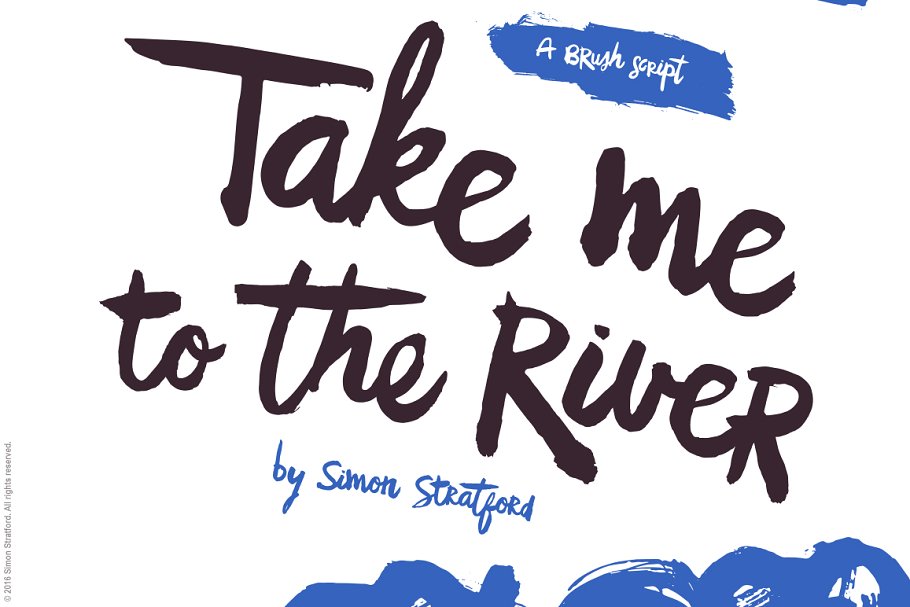
Introducing Take me to the River, a captivating script font created by the talented Simon Stratford. With its irregular brush style and unique flow, this font is sure to make a statement in your designs.
Each letter in Take me to the River was meticulously hand-painted using a Chinese calligraphy brush and black Indian ink. The result is a dynamic and organic look that truly captures the essence of a natural brush script. The bold strokes and ligatures add a touch of motion, giving your designs a truly handwritten feel.
This font is incredibly versatile and can be used for a wide range of projects. Whether you're designing wedding invites, branding and packaging, posters, book covers, or stationery, Take me to the River will effortlessly enhance your creations with its natural cursive look.
One of the standout features of this font is its extensive OpenType support. Each upper and lowercase letter has multiple alternatives, allowing you to choose the perfect character for your design. Simply use software such as Indesign, Photoshop, or Illustrator that supports OpenType to access these features.
Take me to the River includes one weight regular, ligatures, alternative glyphs, numbers, punctuation, and symbols. It also supports Western European, Central European, and South Eastern European characters, making it suitable for various languages and projects.